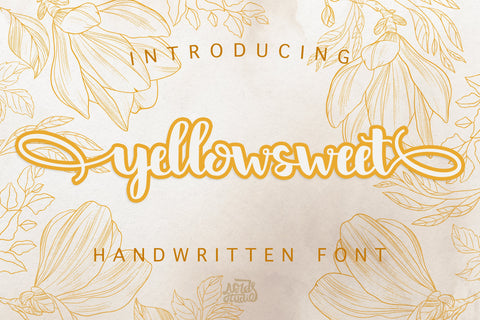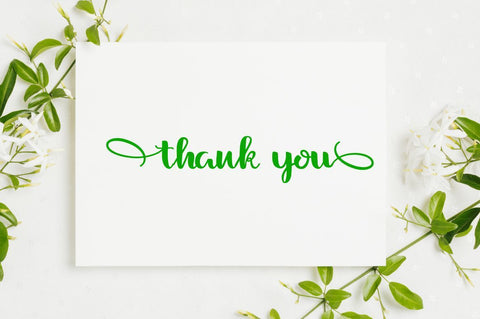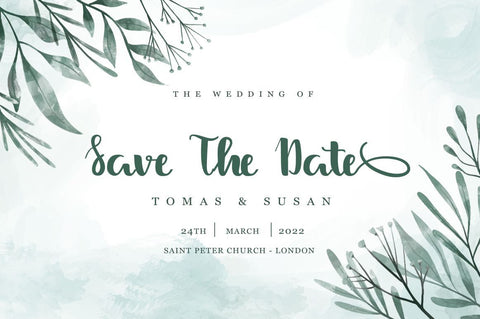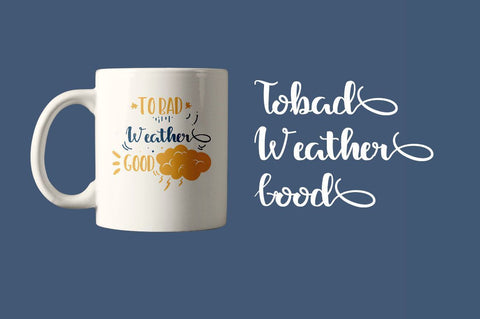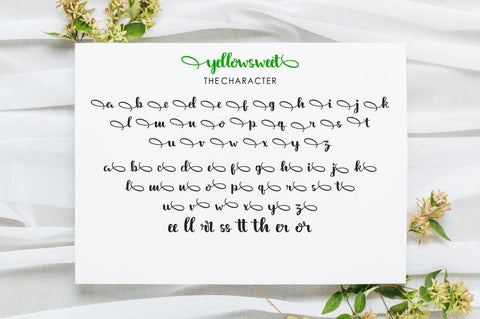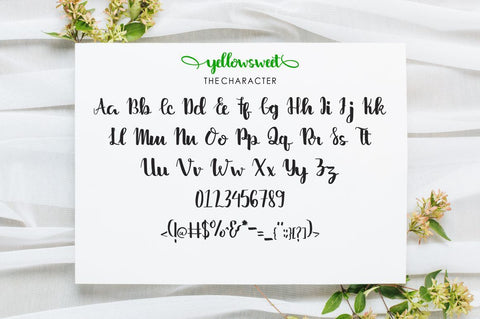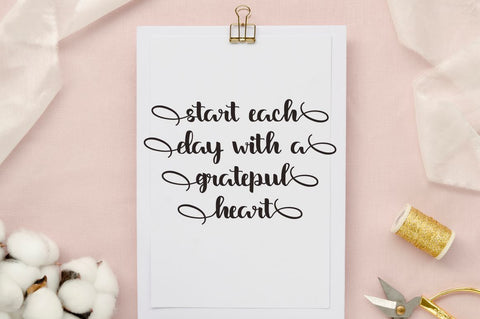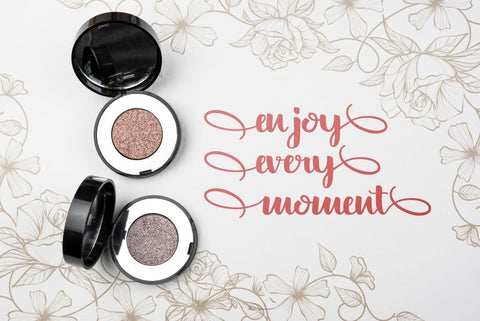
Yellow Sweet Handwritten Font
Yellow Sweet is a Modern Handwritten Font, This font is handmade and has powerful character with SALT and SWSH. The font is work specialty is good for product design like a Template/mockup, Post, T-shirt, Quote, New Years Present, typography design, etc. This product is inspirational for your creative design.